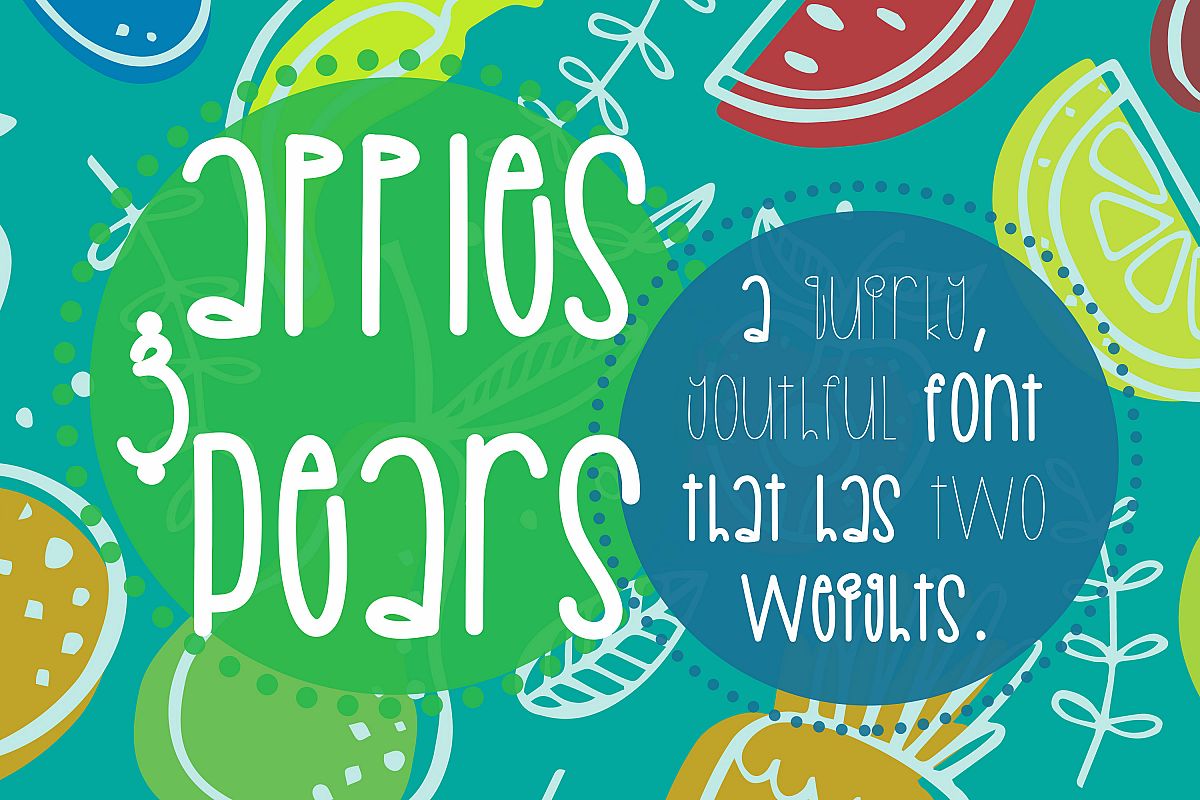
Apples & Pears
Apples & Pears is a cute, handwritten youthful font. This font is perfect for an assortment of things and pairs very well with others (especially script fonts!). This font has two weights: Bold and Regular, and you can use this font for all sorts of things, including:
• greeting cards
• invitations
• posters
• t-shirt designs
• SVG Designs
• And more...